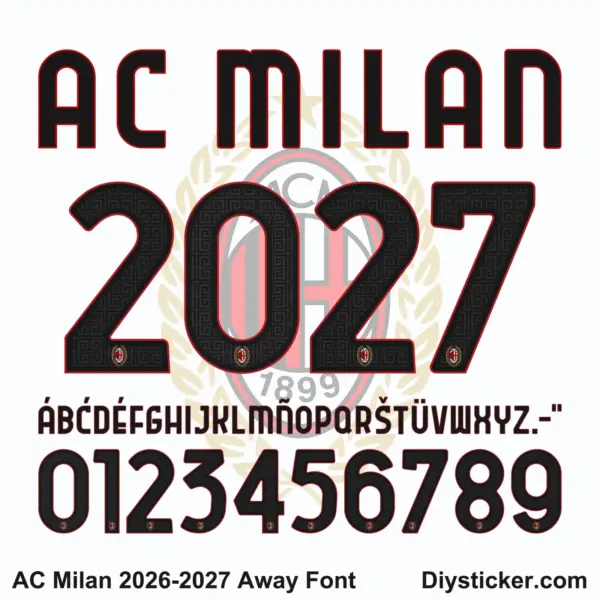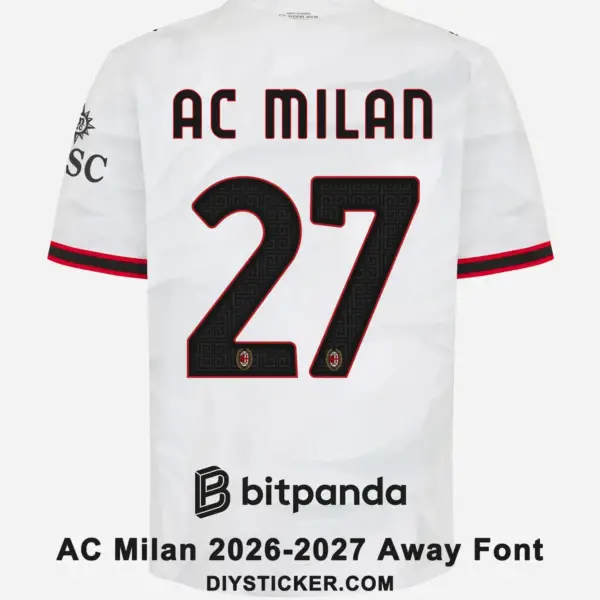
AC Milan 2026-2027 Away Font Download
Equip your workshop floor with the verified AC Milan 2026-2027 Away font master file bundle, engineered specifically for custom uniform printers, sports apparel shops, and football jersey collectors. This premium digital asset delivers a perfect recreation of the modern rounded typography, red outline accents, and intricate geometric Greek key pattern infill deployed by I Rossoneri. Bypass the time-consuming process of manually tracking low-fidelity photos—our production-ready assets provide installable desktop system typefaces and clean cutting vectors for immediate download right after checkout.
Club-Accurate Details: Captures the smooth rounded letterforms, vibrant red contrast outlines, subtle internal geometric patterns, and official baseline AC Milan club crest placeholders.
Premium AC Milan 2026-2027 Away Font & Numbers Archive
In the fast-paced custom teamwear manufacturing and classic kit restoration sectors, having access to sharp, verified club assets heavily influences your production speed and business profitability. AC Milan’s historic white away kit demands absolute typographic accuracy to preserve authentic retail value. This commercial-grade AC Milan 2026-2027 Away font repository serves as an industry-grade toolkit for modern print shops. Instead of guessing stroke widths, border offsets, or internal pattern textures, your workshop floor can instantly import production-ready digital tracks to output high-fidelity namesets.
True Replica Detailing: Every asset accurately maps the unique character tracking, red outline contrasts, geometric internal line patterns, and precise baseline AC Milan crest emblem markers required for collector-grade apparel customization.